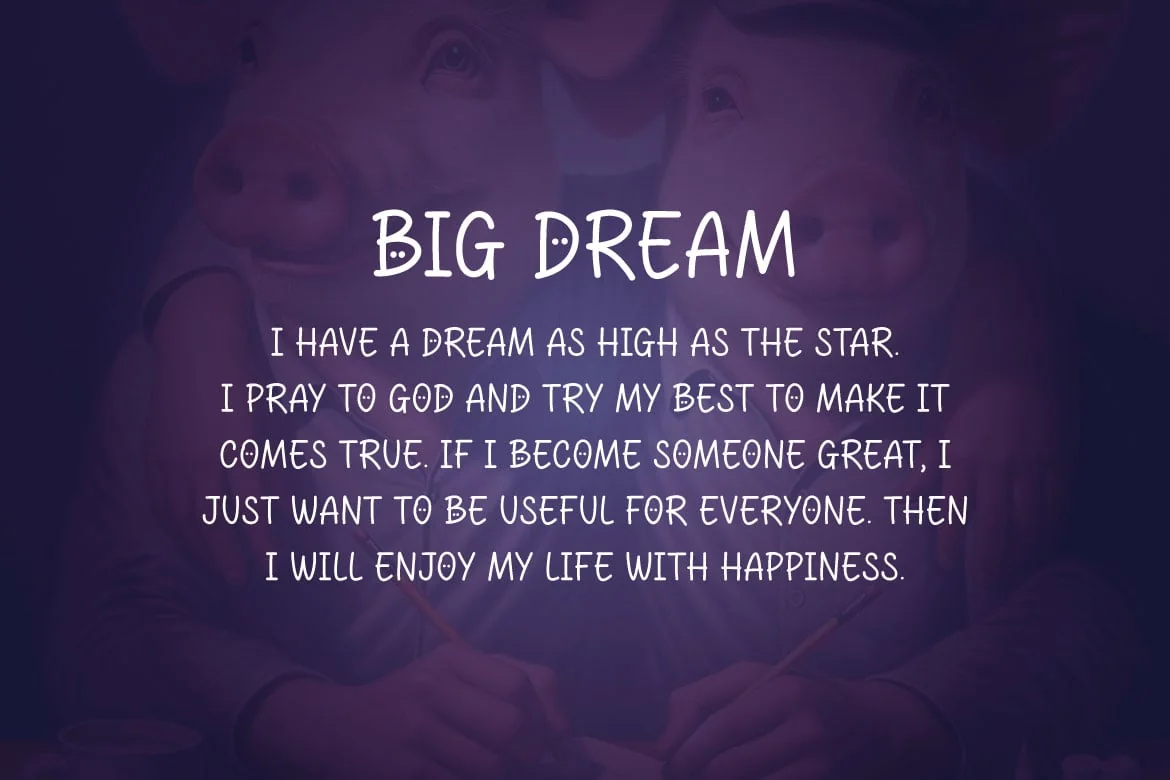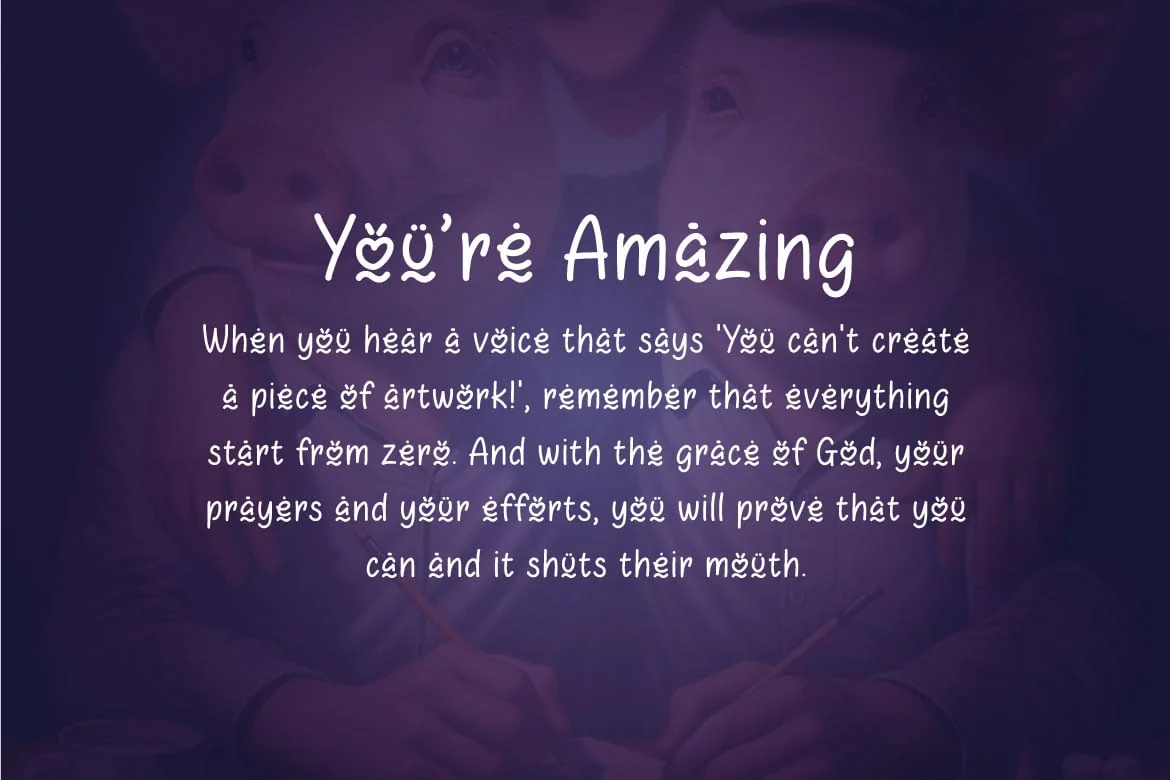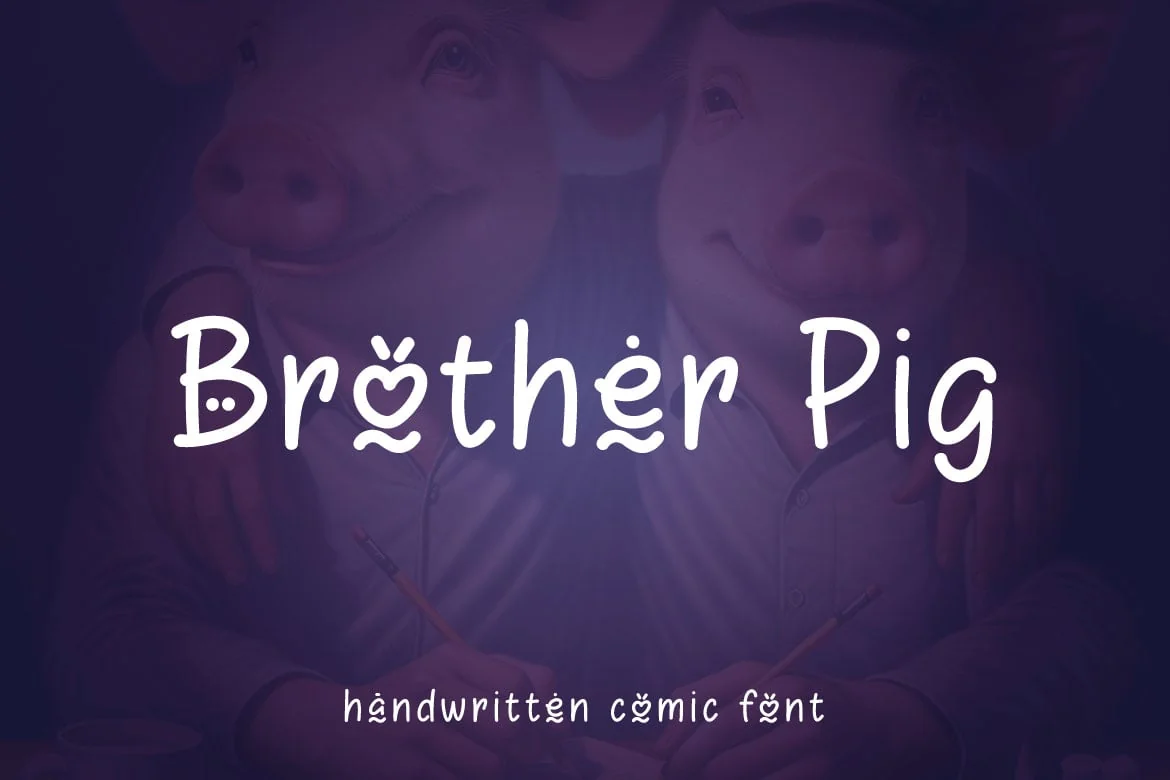
Brother Pig – Fun Cute Comic Font
Introducing Brother Pig, a fun and cute comic font that brings a playful vibe to your designs! With its rounded letters and whimsical style, this font is perfect for children’s books, comics, greeting cards, invitations, posters, and any project that needs a touch of humor and joy.
Brother Pig offers a unique character that stands out with its bold lines and friendly appearance. It’s easy to read and adds a charming, light-hearted feel to your creative work. Available in TTF and OTF formats, Brother Pig is ready to bring your projects to life with its delightful and quirky personality.